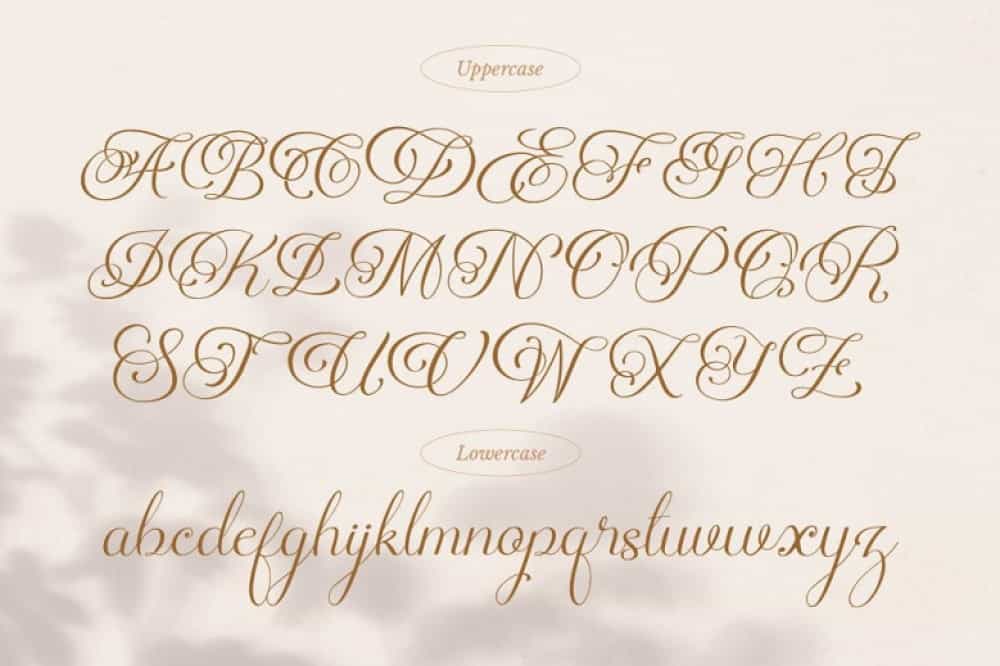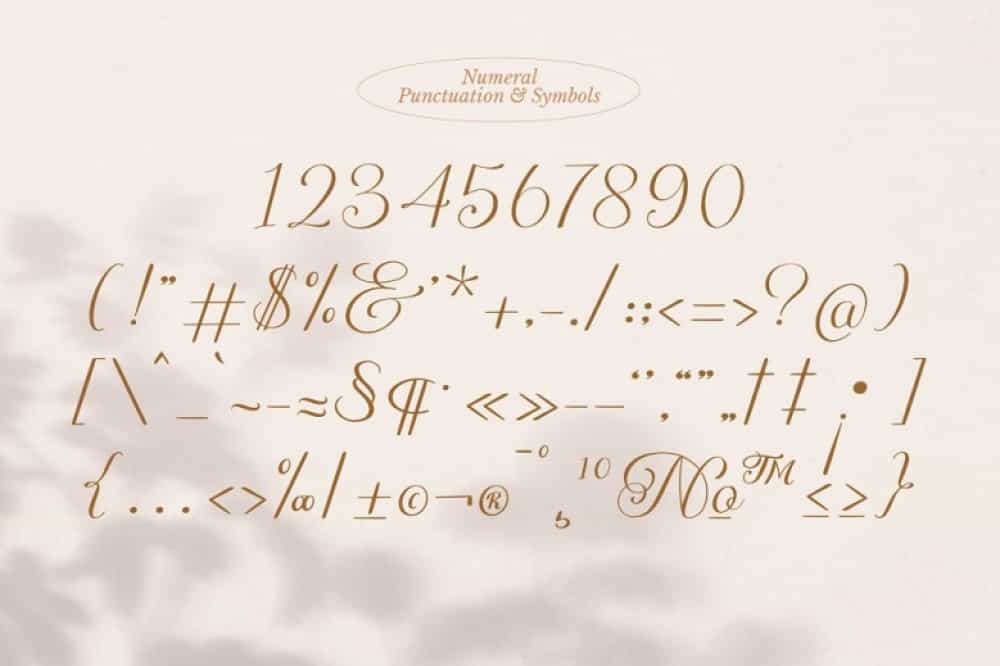
Saudary is an elegant font that is specifically designed for calligraphy script. This font is good for any project including logos, branding works, home accessories designs, product packaging, mugs, quotes, banners, shopping bags, t-shirts, book covers, business cards, invitation cards, greeting cards, labels, events and any other project that requires a beautiful script.